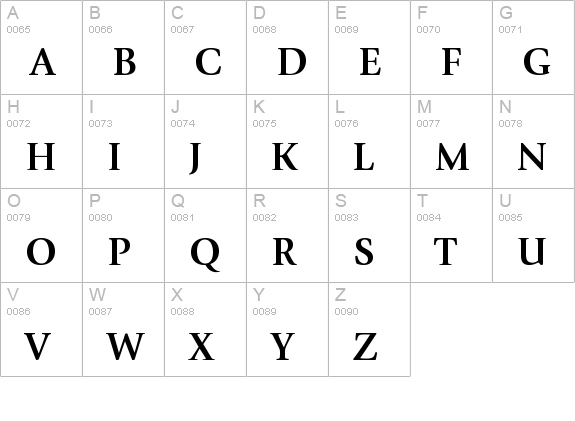
GiovanniEF-Bold Font Details
GiovanniEF-Bold is a strong, high-contrast variant in the GiovanniEF typeface family \xE2\x80\x94 well suited to headlines, attention-grabbing titles, and strong calls-to-action.
GiovanniEF-Bold font is a stunning and versatile typeface that exudes elegance and sophistication. With its bold and commanding presence, this font is perfect for making a statement in your designs. Its sleek and modern appearance makes it ideal for a wide range of projects, from branding to editorial design. What sets GiovanniEF-Bold font apart is its seamless blend of classic and contemporary styles, making it a timeless choice for any design project. Whether you're creating a logo, poster, or website, this font will add a touch of class and professionalism to your work. Best of all, GiovanniEF-Bold font is available for free download at FontsMarket.com. So go ahead and elevate your designs with this exquisite typeface today!